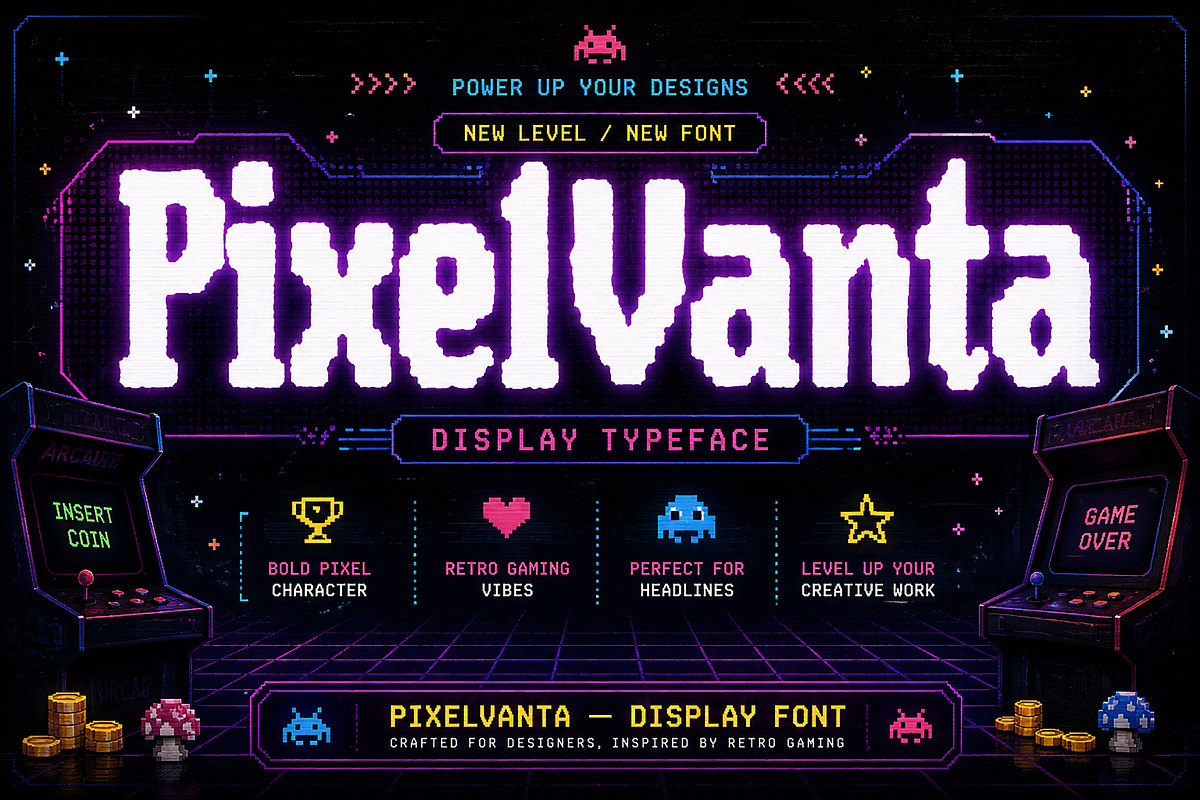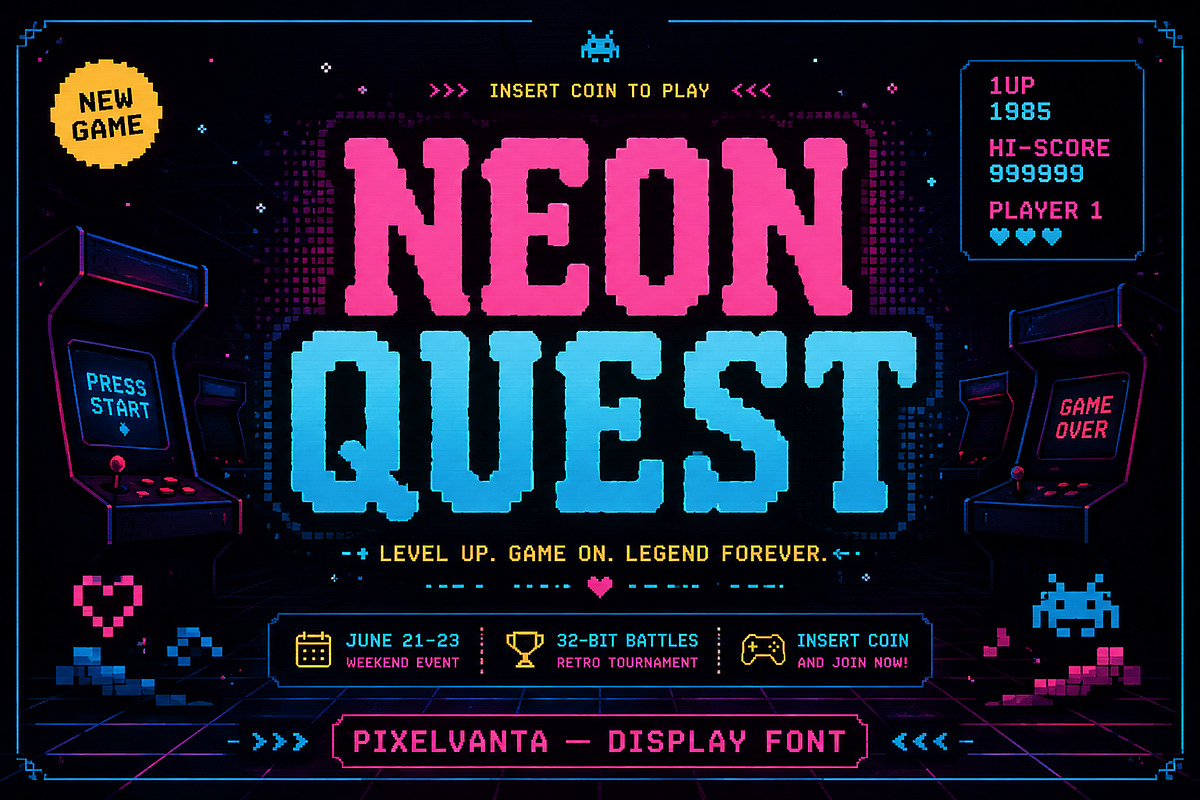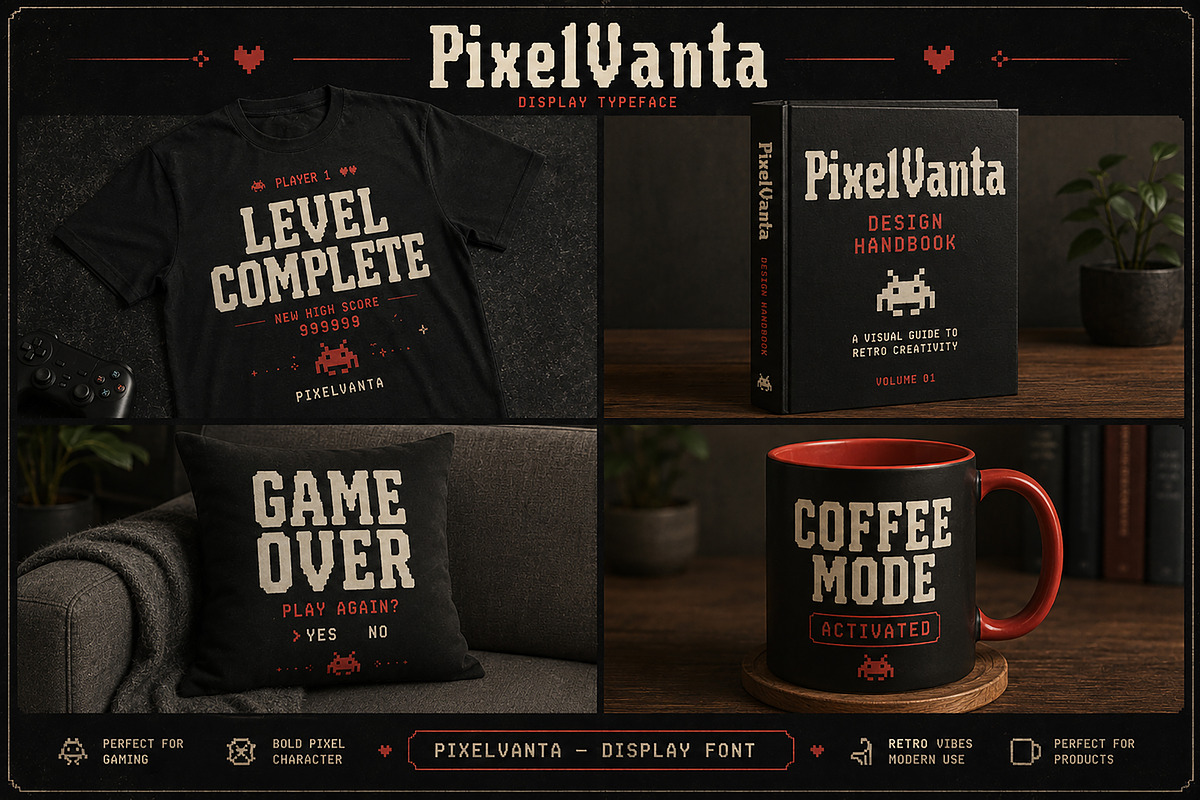
PixelVanta
# PixelVanta — Retro Pixel Display Font
PixelVanta is a bold retro display typeface inspired by classic arcade games, pixel aesthetics, and vintage 80s/90s digital graphics. Designed for creators who want eye-catching headlines with a nostalgic gaming vibe, this font is perfect for posters, logos, merchandise, branding, packaging, social media graphics, and creative display projects.
Its chunky pixel-inspired letterforms deliver strong visual impact while maintaining excellent readability in large sizes. Whether you're designing a retro game title, streetwear collection, or bold promotional artwork, PixelVanta brings instant personality to your work.
### Perfect For
* Retro & arcade posters
* Gaming titles and stream graphics
* Logo & branding projects
* T-shirt and merchandise designs
* Packaging & product labels
* Social media and YouTube thumbnails
* Event flyers and promotional artwork
* Style: Retro Pixel Display Typeface
Bring nostalgic arcade energy to your next creative project with PixelVanta.